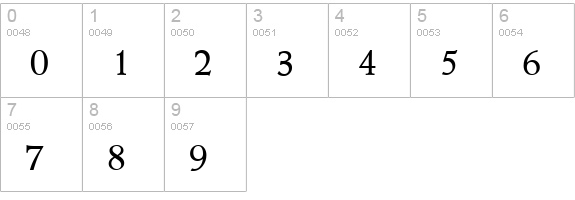
W690-Roman-Regular Font Details
W690-Roman-Regular is the standard, neutral variant in the W690 typeface family \xE2\x80\x94 well suited to general body text, paragraphs, and standard typographic work.
The W690-Roman-Regular font is a versatile and elegant typeface that exudes sophistication and timeless appeal. With its clean lines and classic serif style, this font is perfect for a wide range of design projects, from print materials to digital media. The W690-Roman-Regular font is ideal for creating professional-looking documents, invitations, logos, and more. Its readability and clarity make it a popular choice for both body text and headlines. Best of all, the W690-Roman-Regular font is available for free download at FontsMarket.com. Whether you're a designer looking to add a touch of finesse to your projects or a business owner in need of a polished font for your branding, the W690-Roman-Regular font is a fantastic choice that won't cost you a dime. Download it today and elevate your designs with this timeless and versatile typeface.